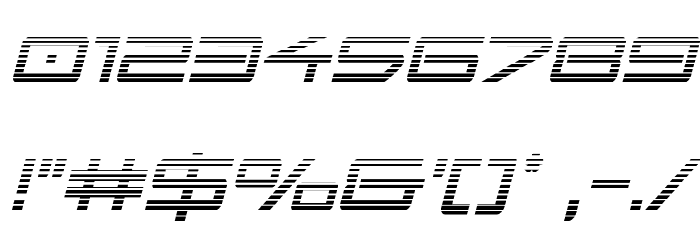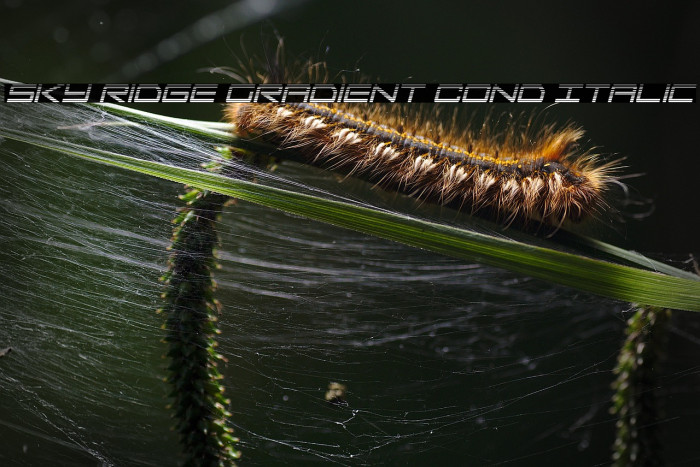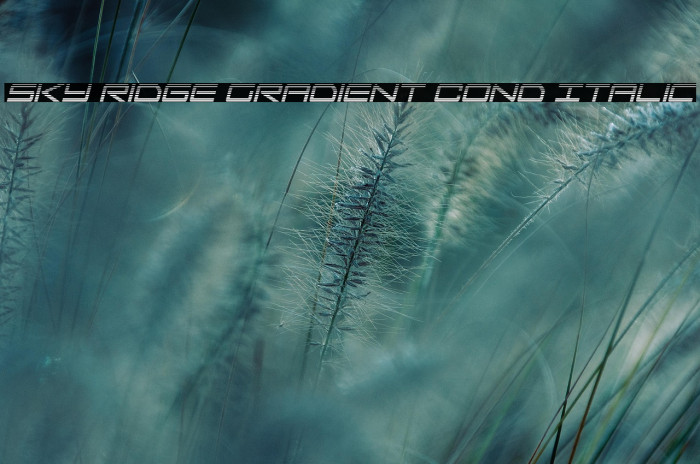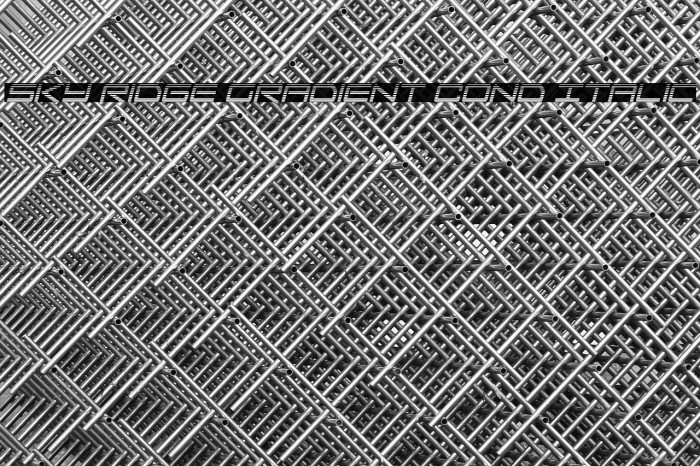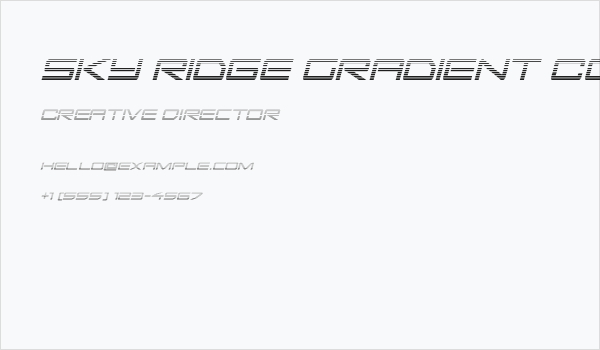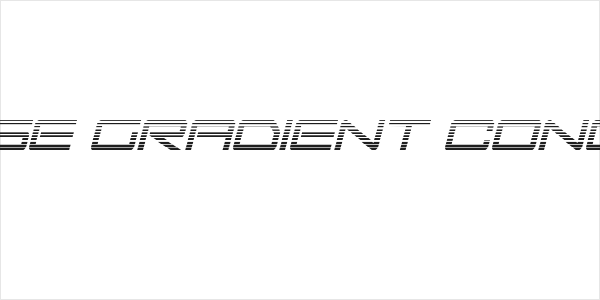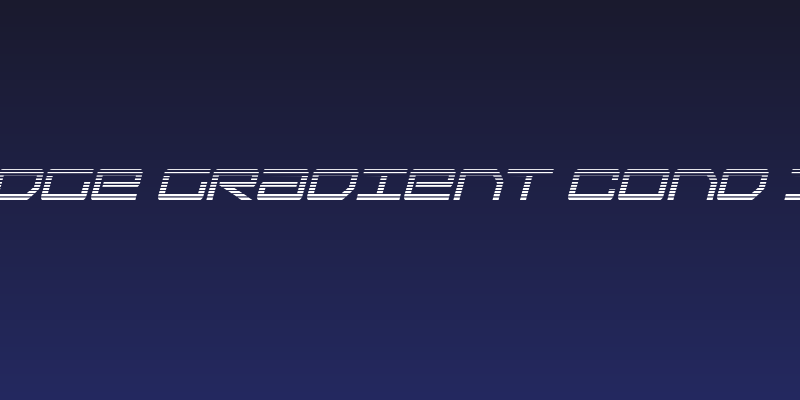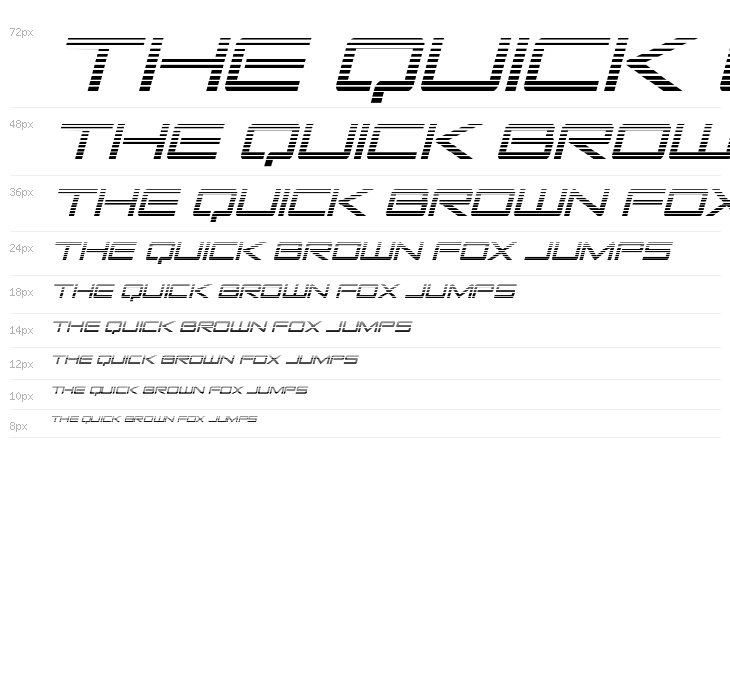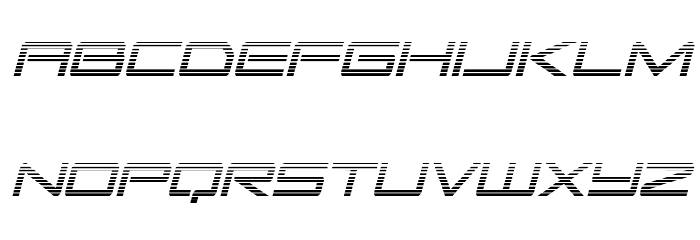
Sky Ridge Gradient Cond Italic Font
Sky Ridge Gradient Cond Italic Description
This font features a futuristic and dynamic design with a distinct gradient effect that gives each character a sense of movement. The italicized style adds to its sleek and modern appearance, making it stand out with its unique striped pattern. The condensed width of the characters enhances its compact and efficient look, ideal for projects that require a bold statement. The font maintains a consistent stroke thickness, providing a medium contrast that ensures readability while maintaining its decorative appeal.
| Proposed Projects | Ideal for sci-fi themed projects, technology branding, modern posters, and innovative product packaging. |